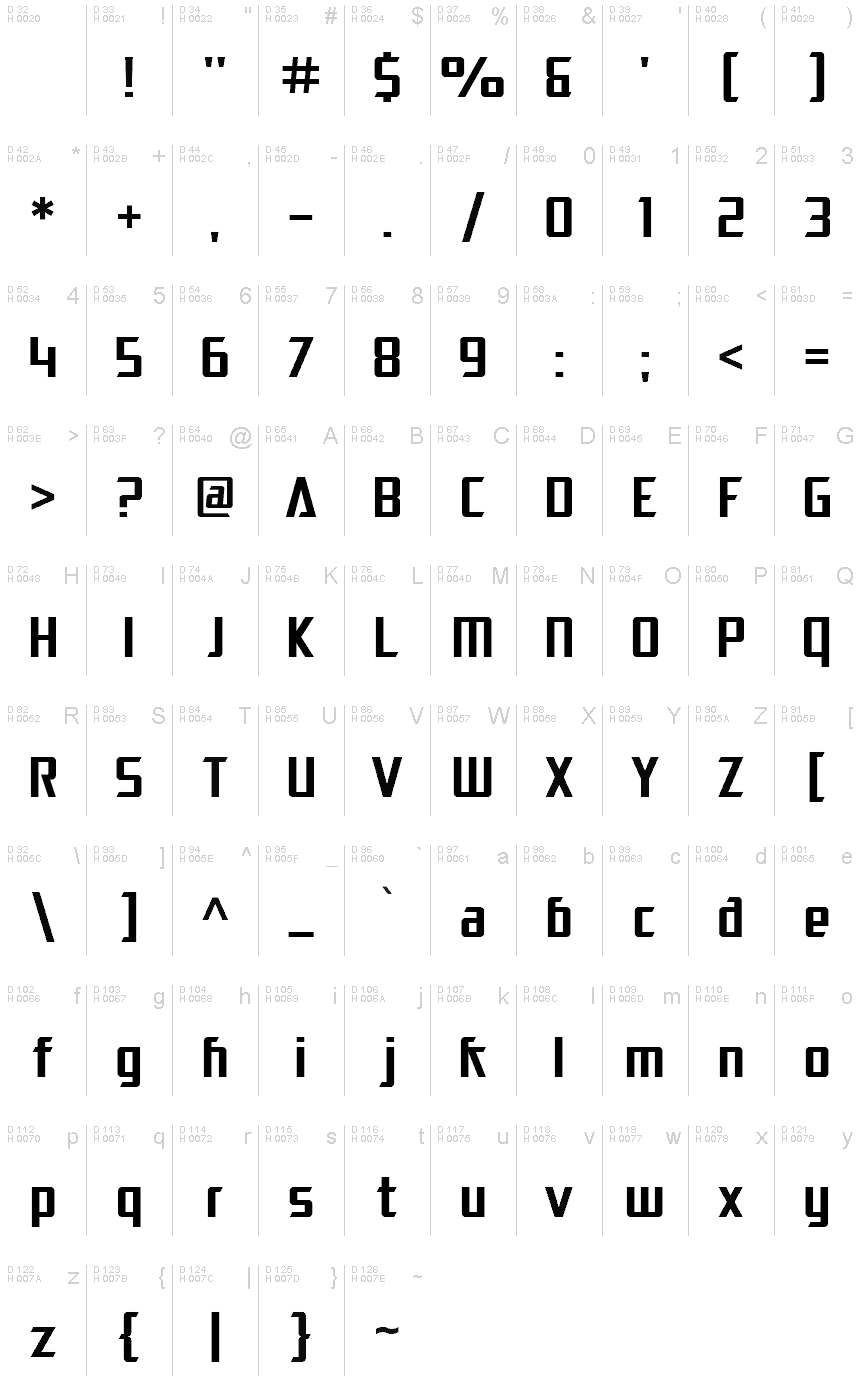
SF Electrotome
SF Electrotome emerges from the creative minds at ShyFonts Type Foundry as a display font that captures the essence of a future in motion. Its semi-bold weight strikes a balance between presence and readability, while the condensed width makes for an efficient use of space without sacrificing impact. With its sleek, futuristic style, SF Electrotome is engineered to command attention and convey innovation.
The aesthetic appeal of SF Electrotome lies in its streamlined letterforms that suggest speed and precision—perfect for projects that require a cutting-edge look. From tech startups to sci-fi movie posters, this font offers versatility for designers aiming to make a statement.
Embrace the forward-thinking vibe of SF Electrotome for your next creative endeavor and let your designs not just speak, but resonate with the audience of tomorrow.
The aesthetic appeal of SF Electrotome lies in its streamlined letterforms that suggest speed and precision—perfect for projects that require a cutting-edge look. From tech startups to sci-fi movie posters, this font offers versatility for designers aiming to make a statement.
Embrace the forward-thinking vibe of SF Electrotome for your next creative endeavor and let your designs not just speak, but resonate with the audience of tomorrow.